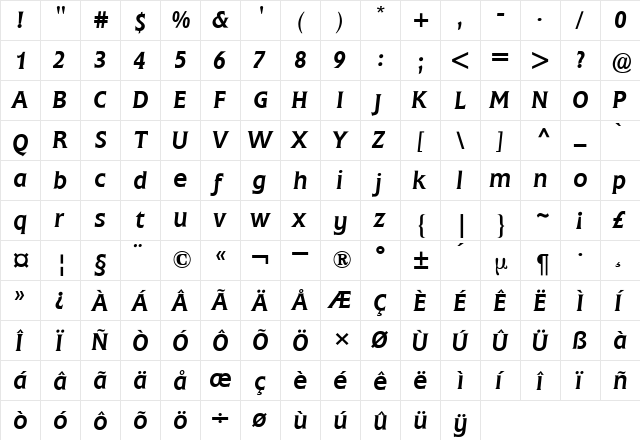
Flange BQ Italic
Design Context for Flange BQ Typeface
Flange BQ offers clean, dependable letterforms without strong stylistic allegiance, making it a practical choice for designers who need flexibility. The slanted form adds forward momentum and visual energy.